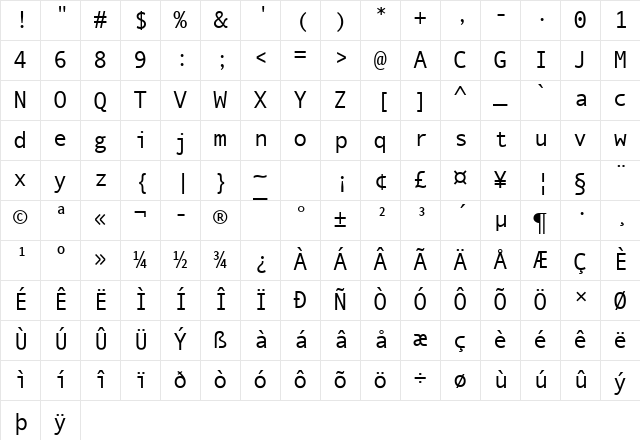
Complete Andale Mono Regular glyph index. Displaying only characters natively supported by Andale Mono Regular font.
Andale Mono uses fixed-width spacing throughout, giving it the structured, systematic character associated with coding environments and technical documentation.
Pro Tip: Use Andale Mono with slightly increased line-height for extended reading - fixed-width spacing can feel dense in longer passages without extra breathing room.